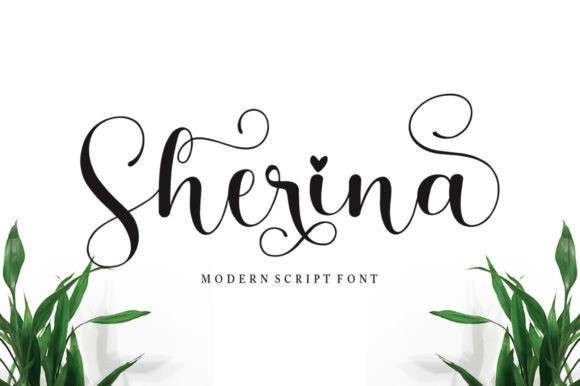
Sherina Font
Sherina Calligraphy Font is a unique, round lettered handwritten font that was carefully crafted to produce the desired results. This font can be used to write titles, invitations, letters, and many other types of products.